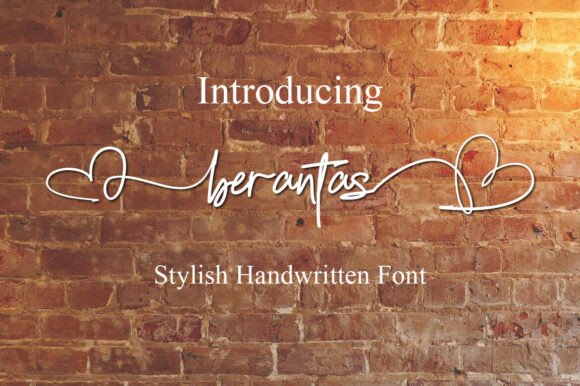
Introducing Berantas: A Stylish Handwritten Font for Creative Projects
In the world of typography, fonts play a crucial role in conveying messages, evoking emotions, and creating a lasting impression. For designers, writers, and marketers, finding the right font can be a daunting task. However, if you’re looking for a stylish and versatile font that can elevate your creative projects, look no further than Berantas. This beautiful handwritten font is perfect for a wide range of applications, from branding and advertising to publishing and digital media.
What is Berantas Font?
Berantas is a stylish handwritten font that boasts a unique and elegant script style. Its flowing lines, delicate curves, and charming imperfections make it an ideal choice for designers seeking to add a touch of personality to their work. Whether you’re creating a brand identity, designing a book cover, or crafting a social media post, Berantas is sure to make your text stand out.
Key Features of Berantas Font
- Stylish Handwritten Style: Berantas features a beautiful, handwritten script style that’s perfect for creating eye-catching headlines, titles, and quotes.
- Versatile: This font is suitable for a wide range of creative projects, including branding, advertising, publishing, and digital media.
- Elegant and Refined: Berantas has a sophisticated and refined look that’s ideal for high-end brands, luxury products, and premium publications.
- Easy to Read: Despite its ornate style, Berantas is surprisingly easy to read, making it perfect for body text, captions, and other secondary text.
Use Cases for Berantas Font
Berantas is an incredibly versatile font that can be used in a variety of creative projects. Here are some ideas to get you started:
- Branding and Logo Design: Use Berantas to create a unique and memorable brand identity that stands out from the crowd.
- Quotes and Posters: Berantas is perfect for creating inspirational quotes, posters, and flyers that grab attention.
- Wedding and Event Invitations: Add a touch of elegance and sophistication to your wedding or event invitations with Berantas.
- Magazines and Book Covers: Use Berantas to create eye-catching headlines, titles, and cover designs for magazines and books.
- Children’s Events and Packaging: Berantas is also suitable for children’s events, product packaging, and other kid-friendly projects.
- Social Media Posts and Brochures: Use Berantas to create engaging social media posts, brochures, and other marketing materials.
Why Choose Berantas Font?
With so many fonts available, why choose Berantas? Here are just a few reasons why Berantas stands out:
- Unique and Memorable: Berantas has a distinctive and memorable style that’s sure to leave a lasting impression.
- High-Quality Design: Berantas is designed with precision and attention to detail, ensuring a high-quality look and feel.
- Versatile and Flexible: Berantas can be used in a wide range of creative projects, from digital media to print materials.
Tips for Using Berantas Font
To get the most out of Berantas, here are some tips to keep in mind:
- Use it Sparingly: Berantas is a bold and eye-catching font, so use it sparingly to avoid overwhelming your design.
- Pair it with Other Fonts: Berantas pairs well with other fonts, so experiment with different combinations to find the perfect look.
- Adjust the Size and Color: Play around with different sizes and colors to find the perfect fit for your design.
- Experiment with Different Effects: Try adding effects, such as shadows or textures, to give Berantas an extra boost.
In conclusion, Berantas is a stylish and versatile handwritten font that’s perfect for a wide range of creative projects. Its unique and elegant script style, combined with its ease of use and flexibility, make it an ideal choice for designers, writers, and marketers. Whether you’re creating a brand identity, designing a book cover, or crafting a social media post, Berantas is sure to make your text stand out.